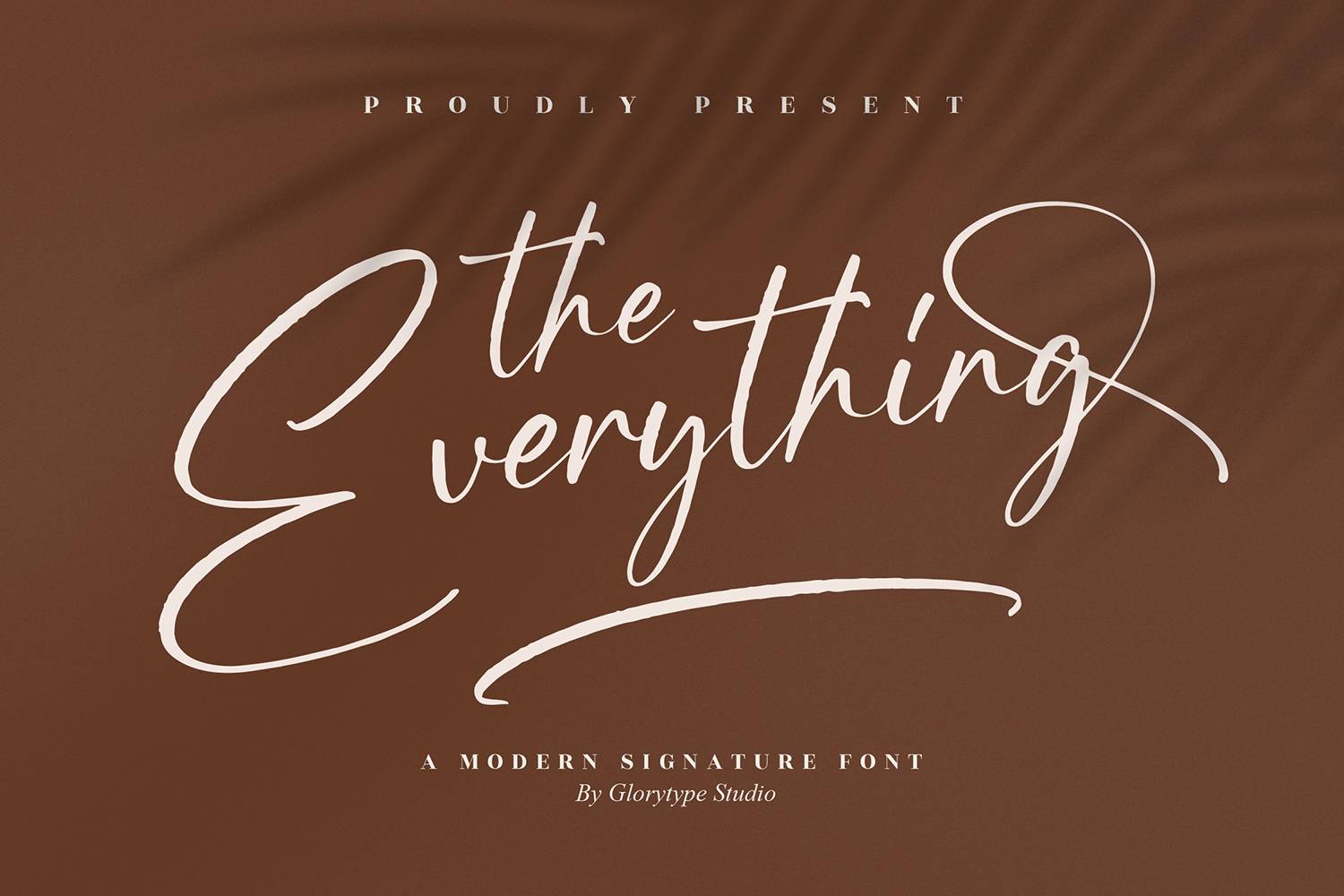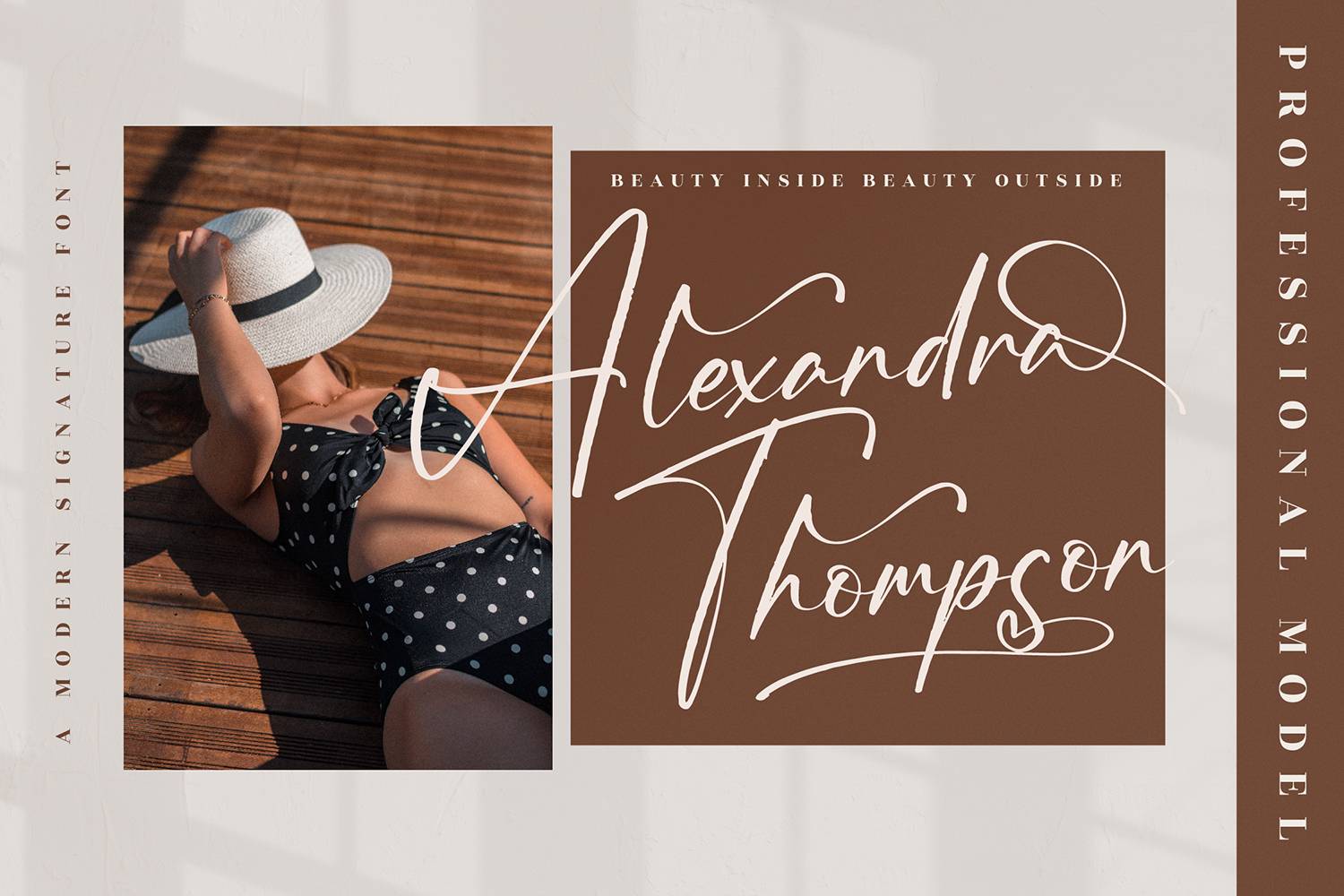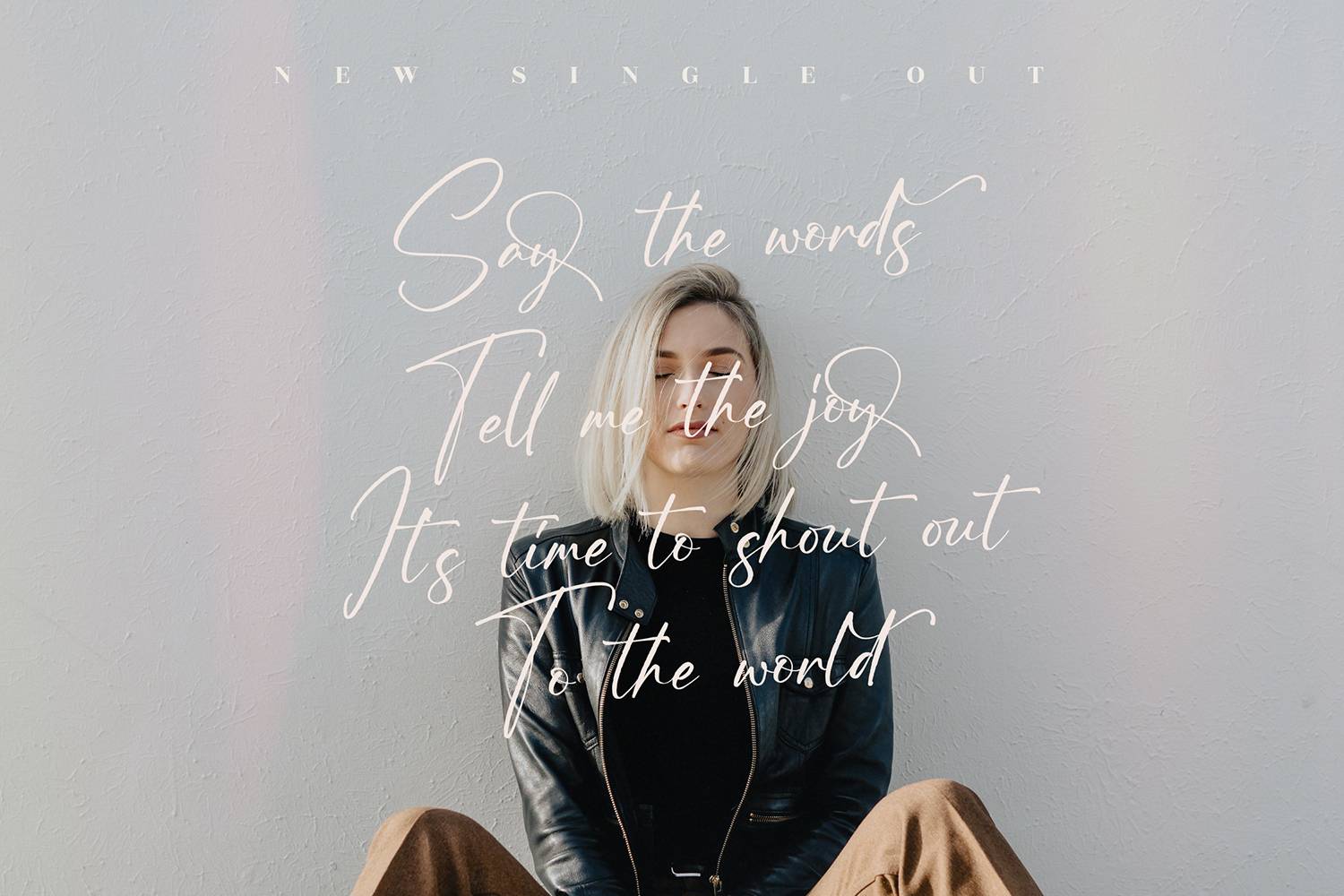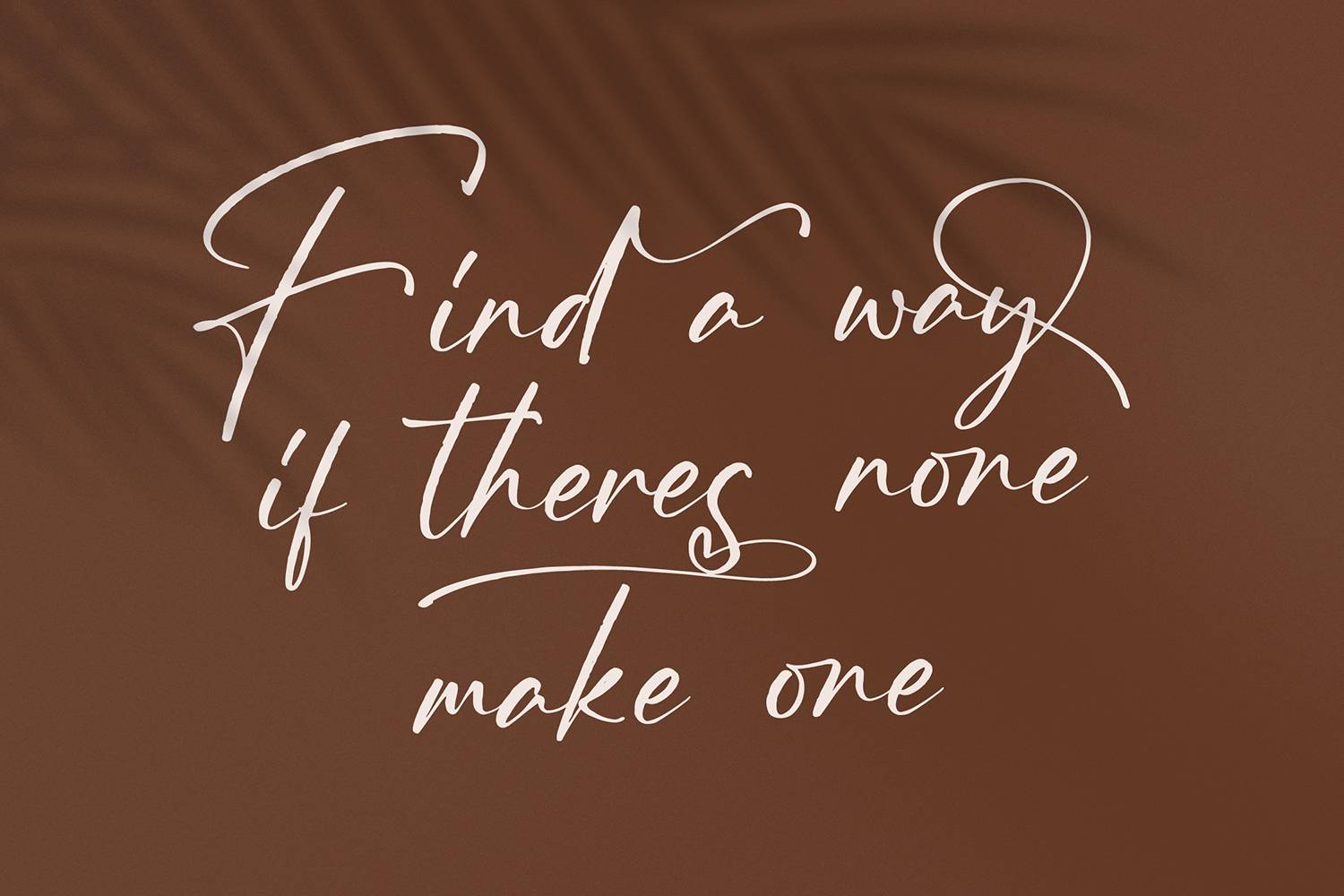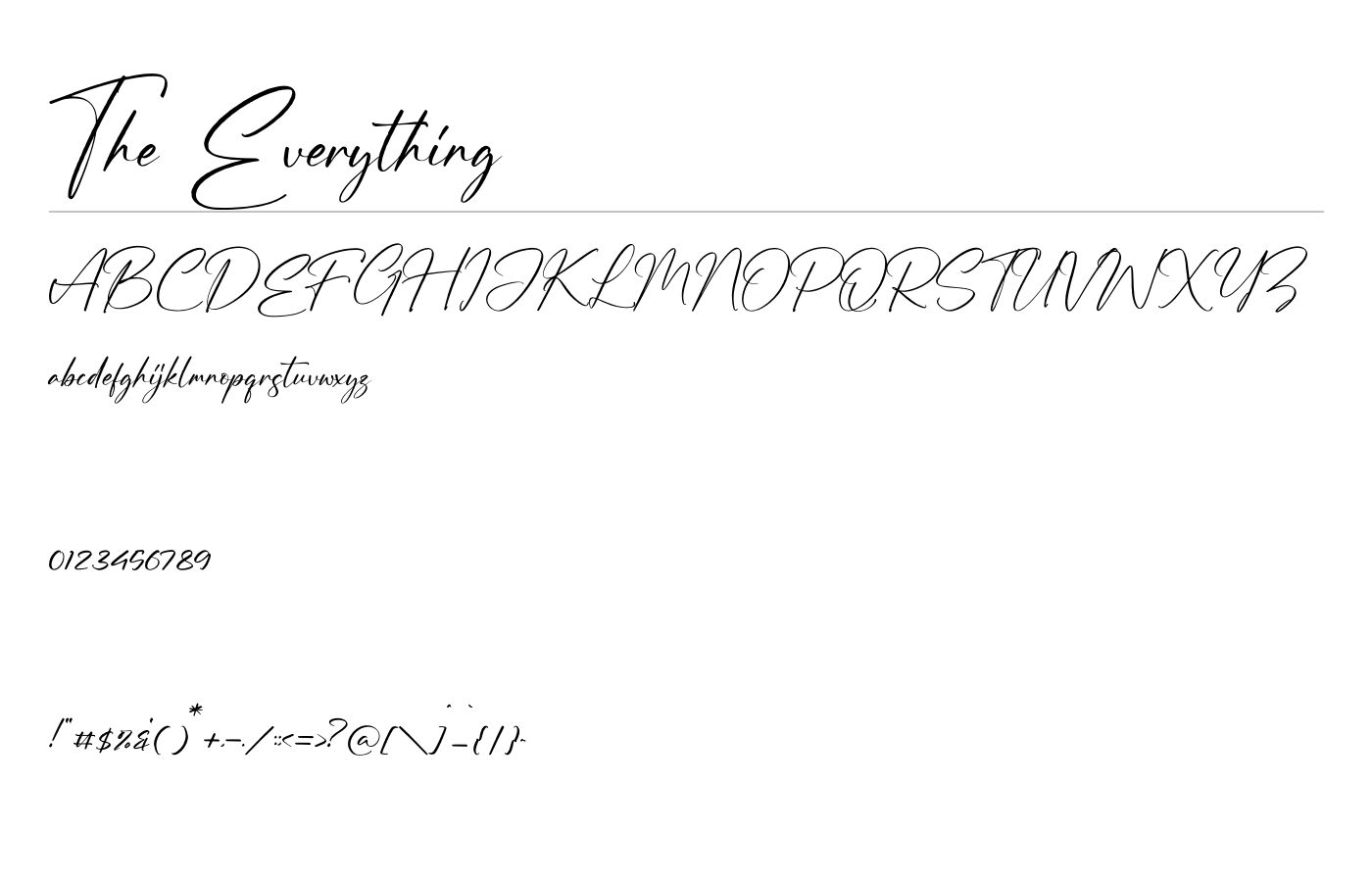
The Everything Font is a delicate, modern script typeface featuring elegant, flowing letterforms with a consistent thin weight and slight italic slant. Its refined strokes and sophisticated style make it ideal for invitations, branding, and any project that seeks a graceful, personal touch. This font works beautifully in contexts where a stylish yet readable script adds a sense of charm and refinement.
The Everything Font
About The Everything Font